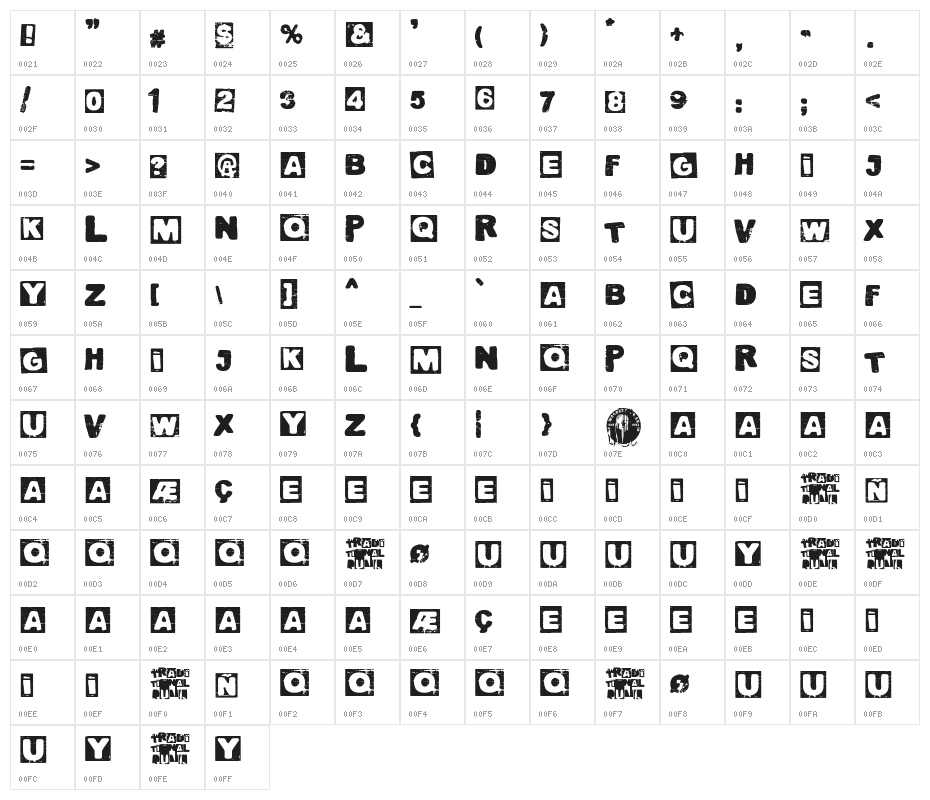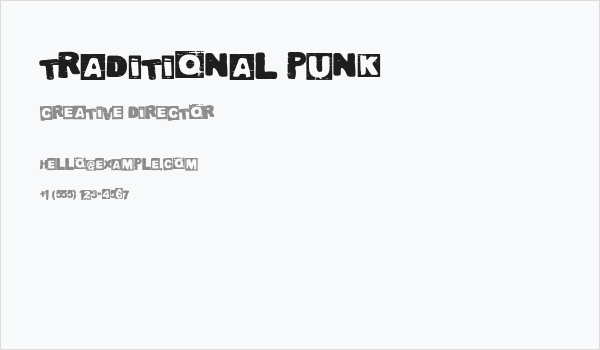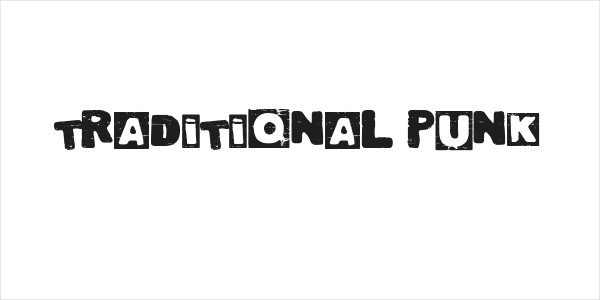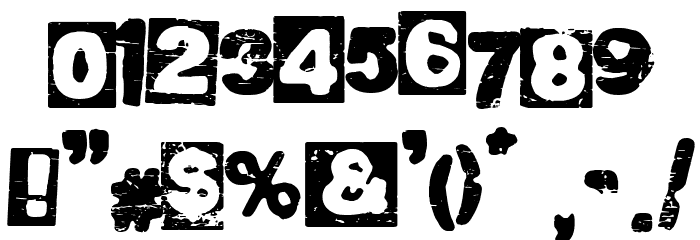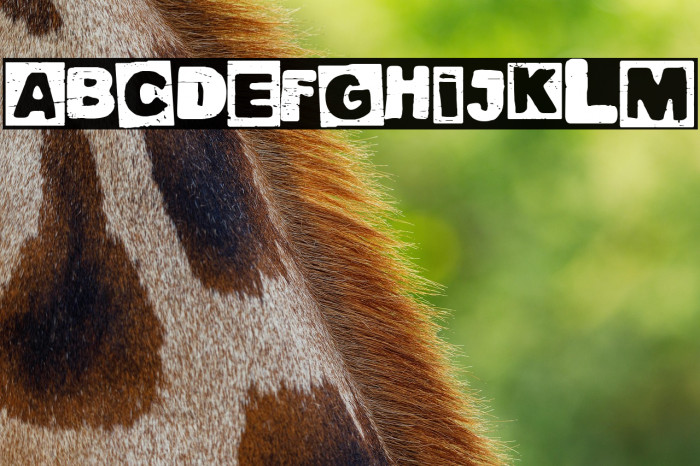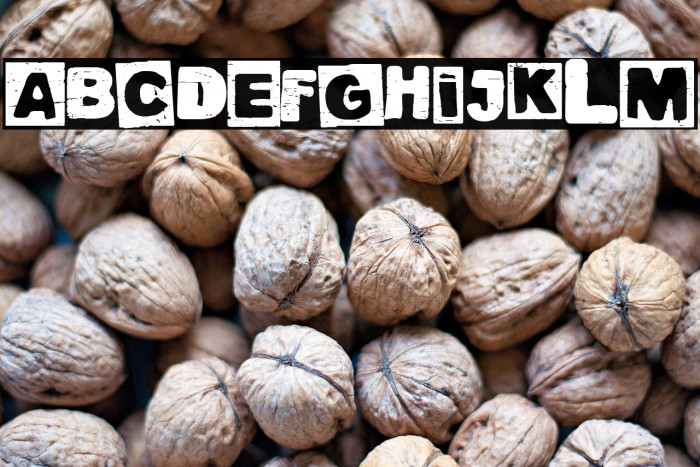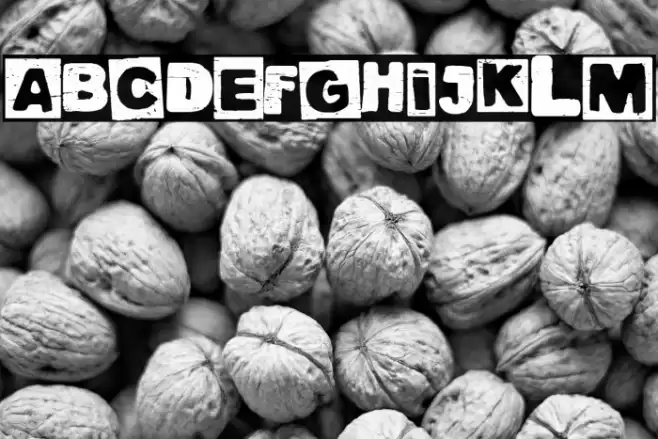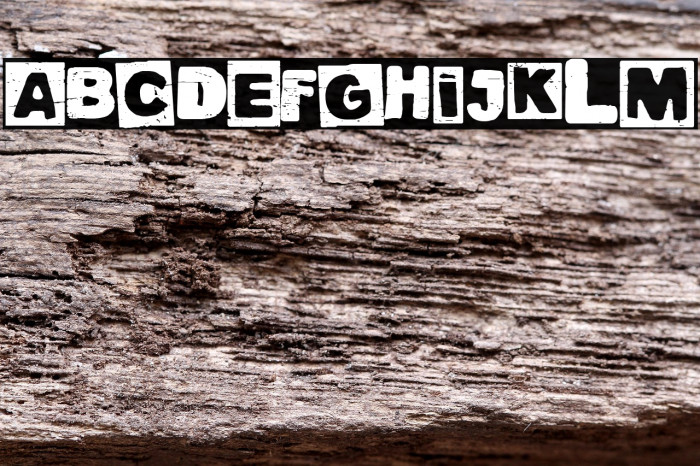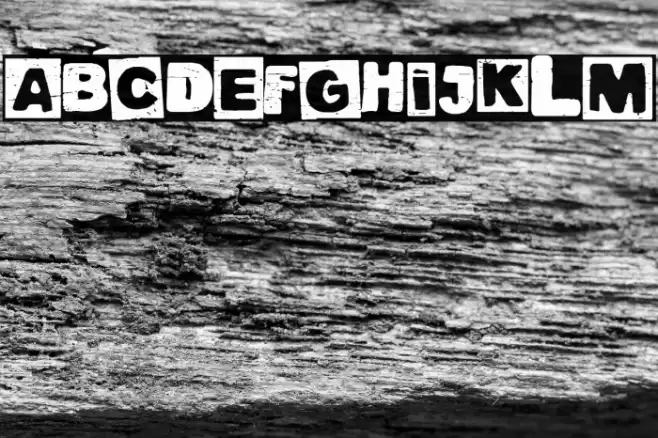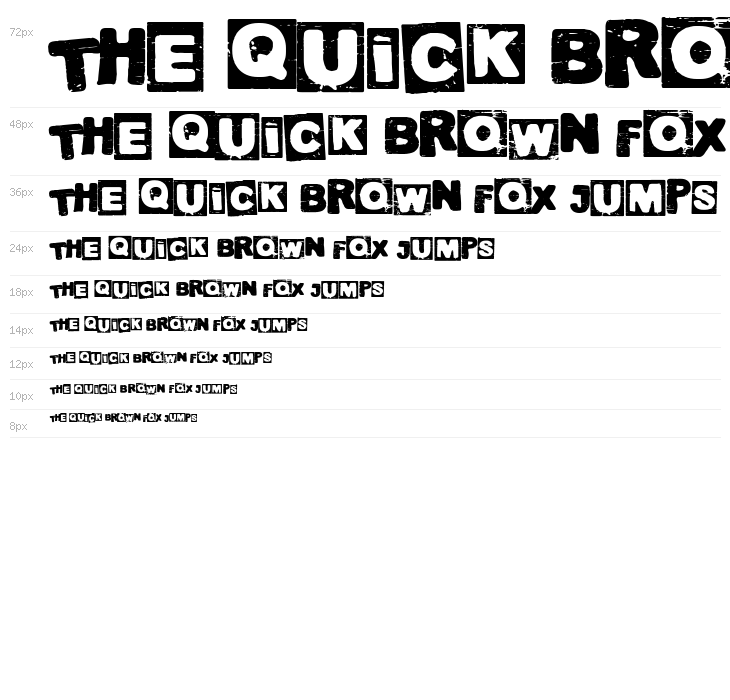
Traditional Punk Font
✎ Distorted Eroded
| Progetti proposti | Ideal for music album covers, posters, event flyers, and any design needing a bold, rebellious touch. |